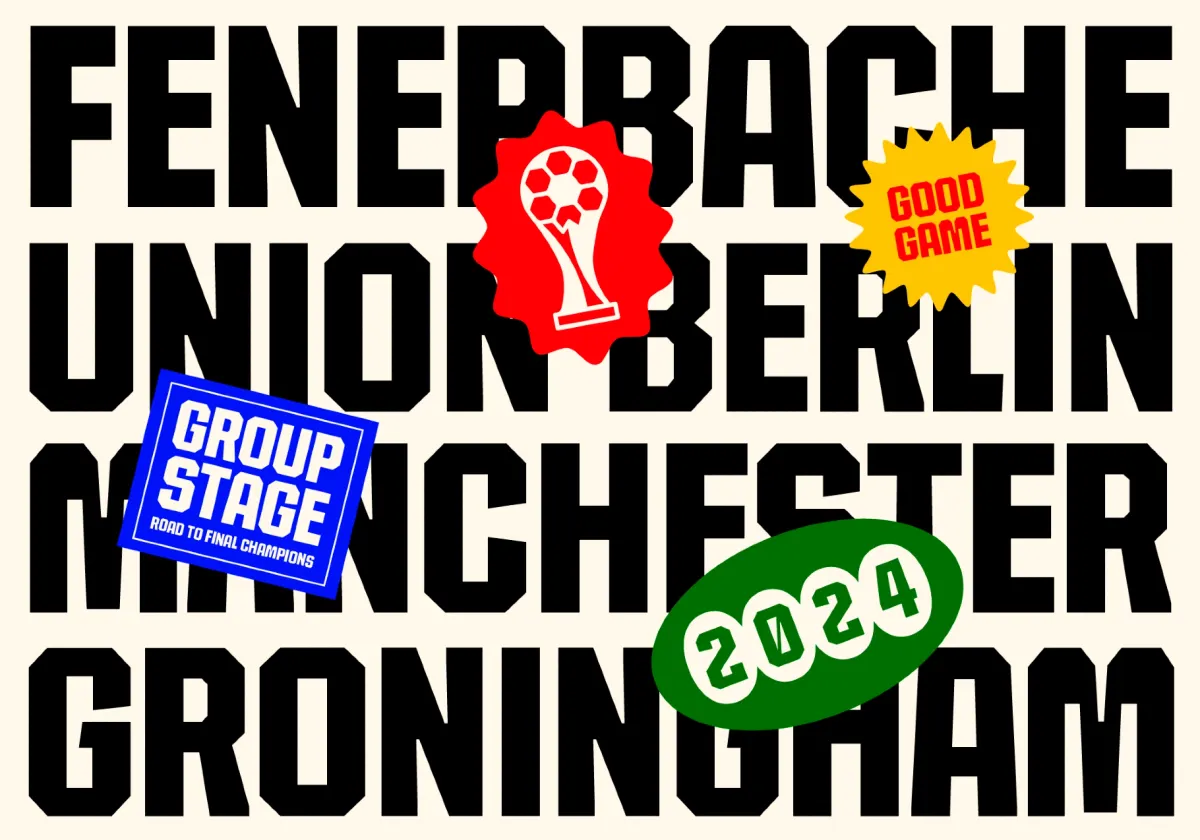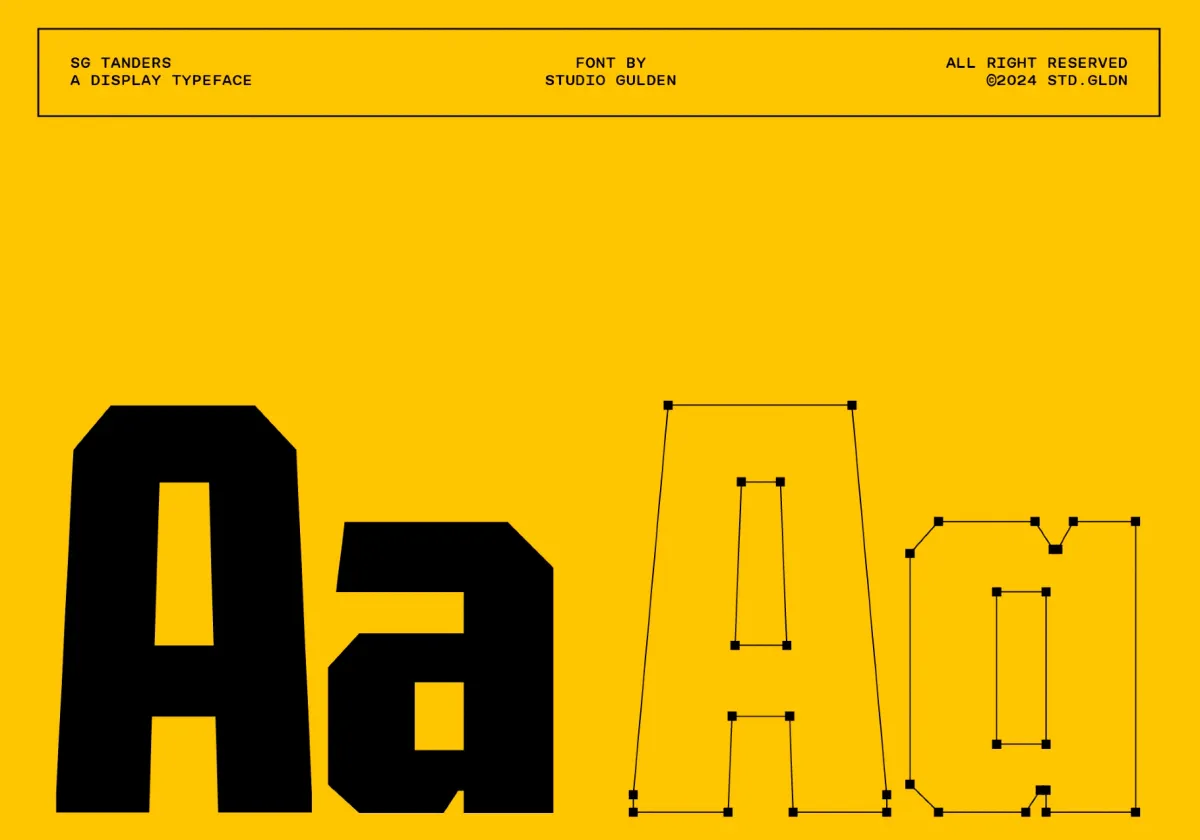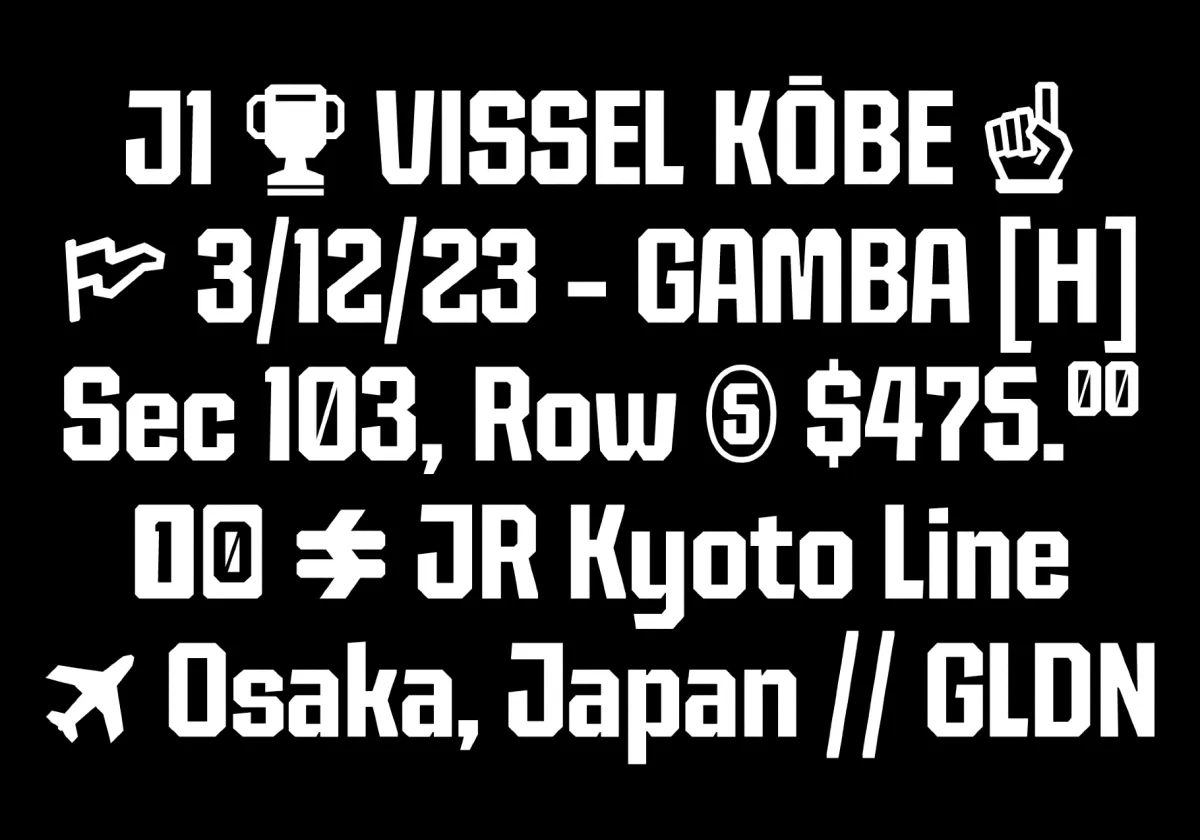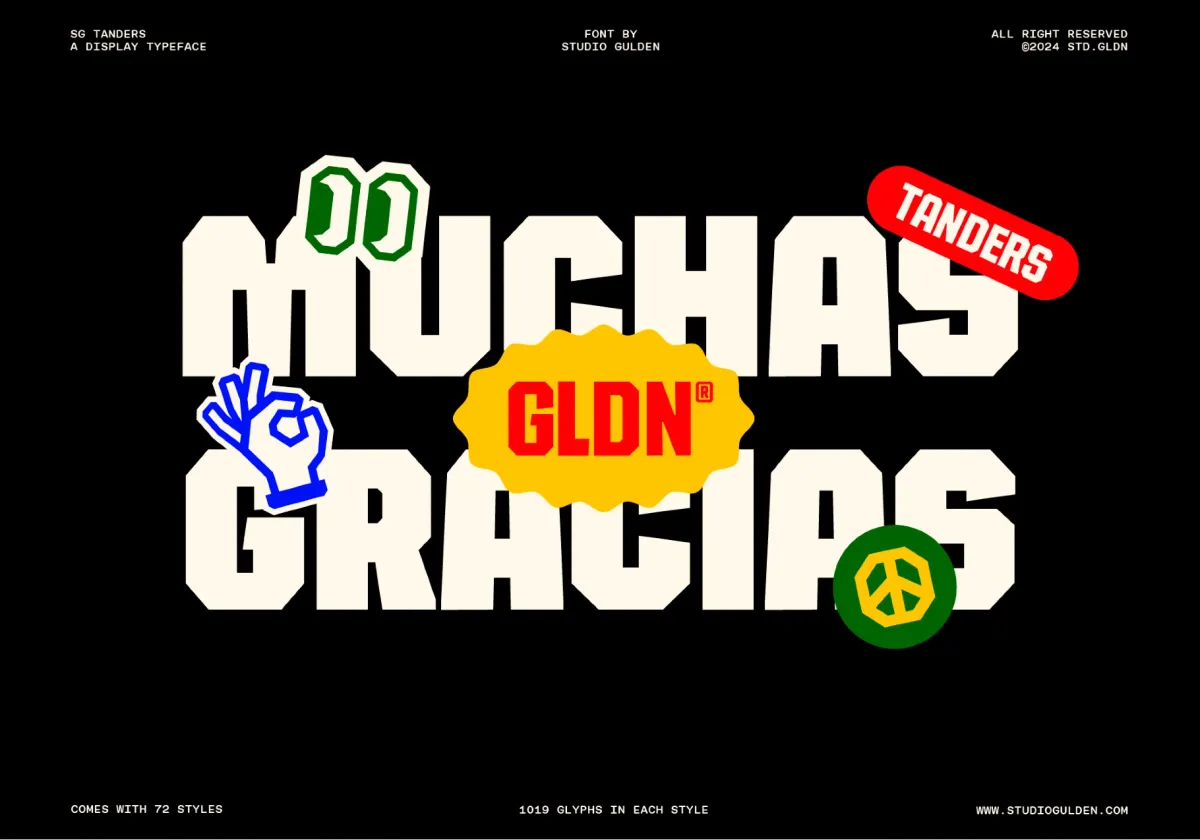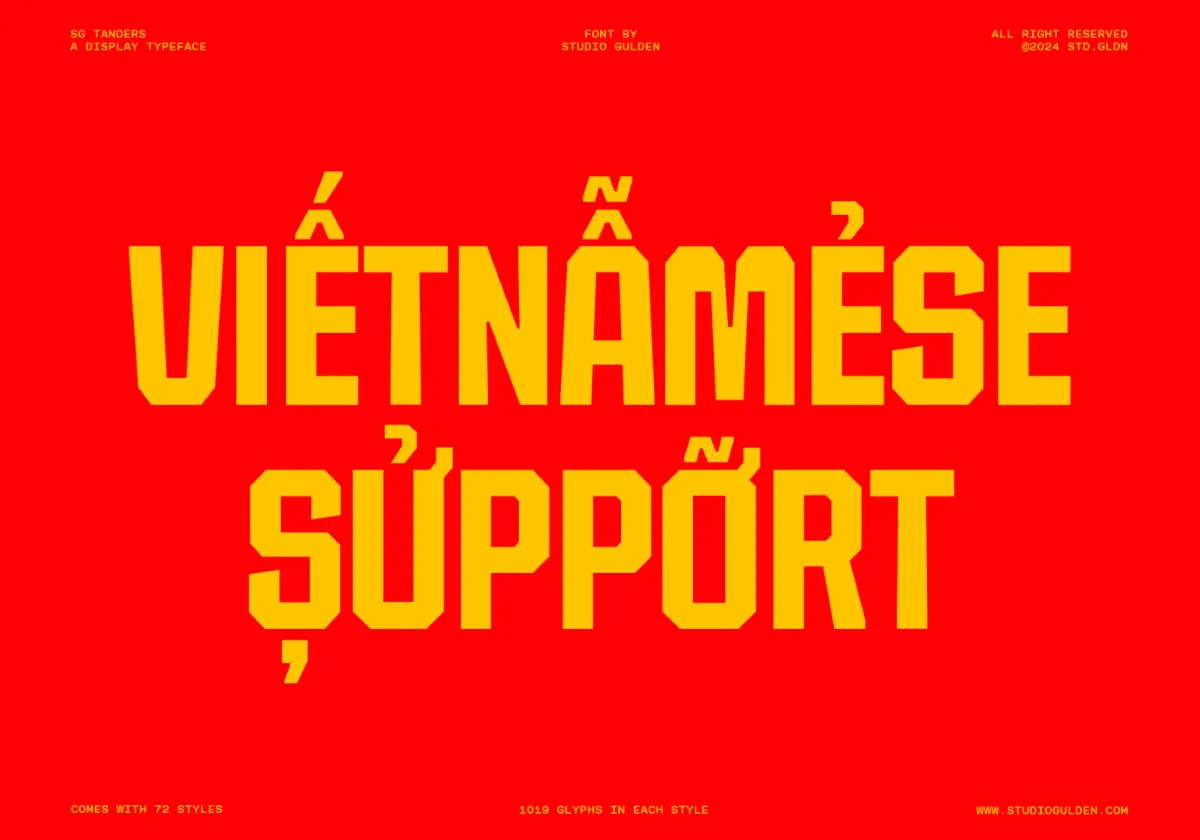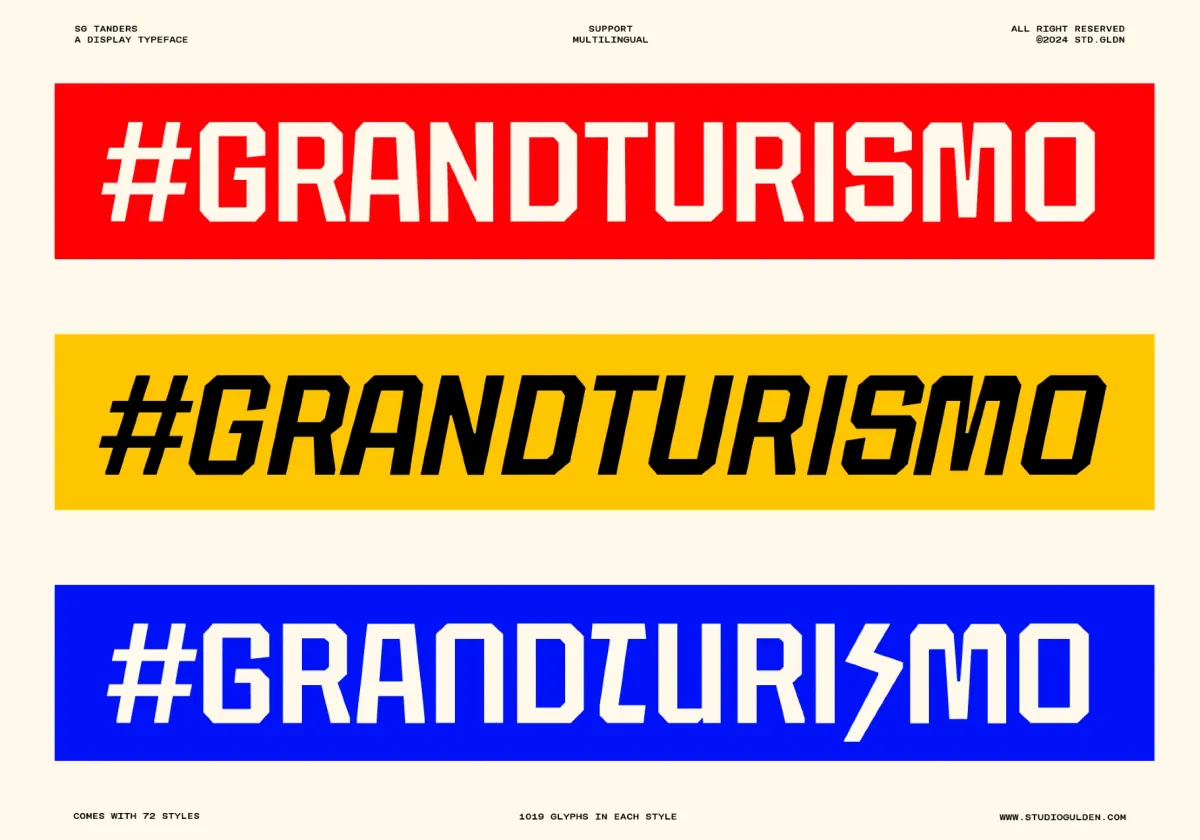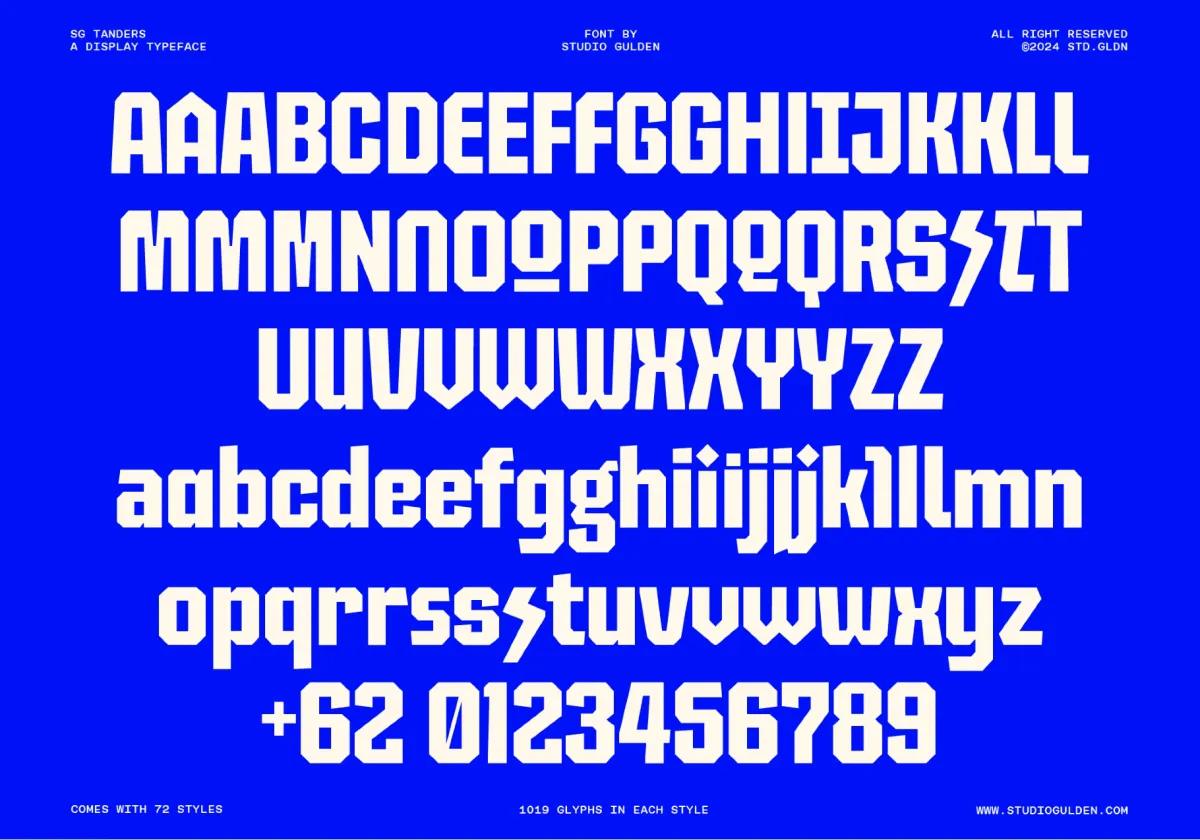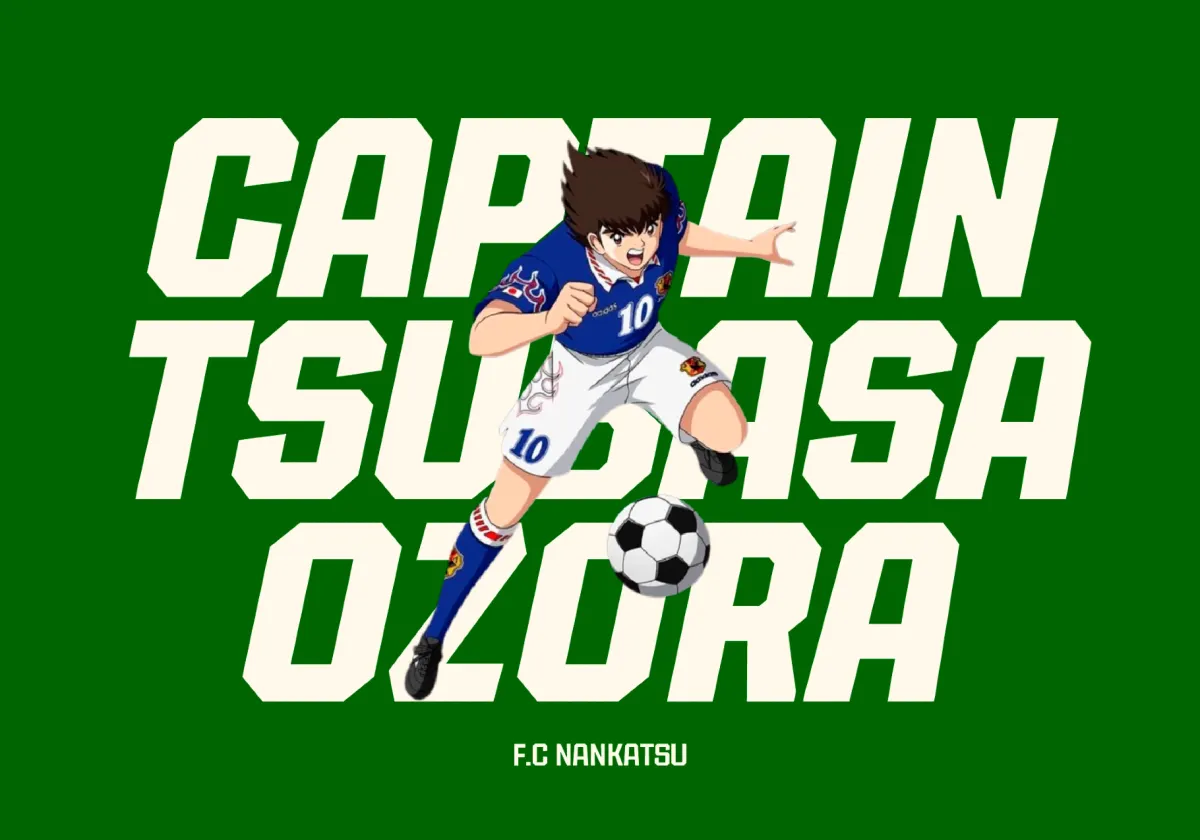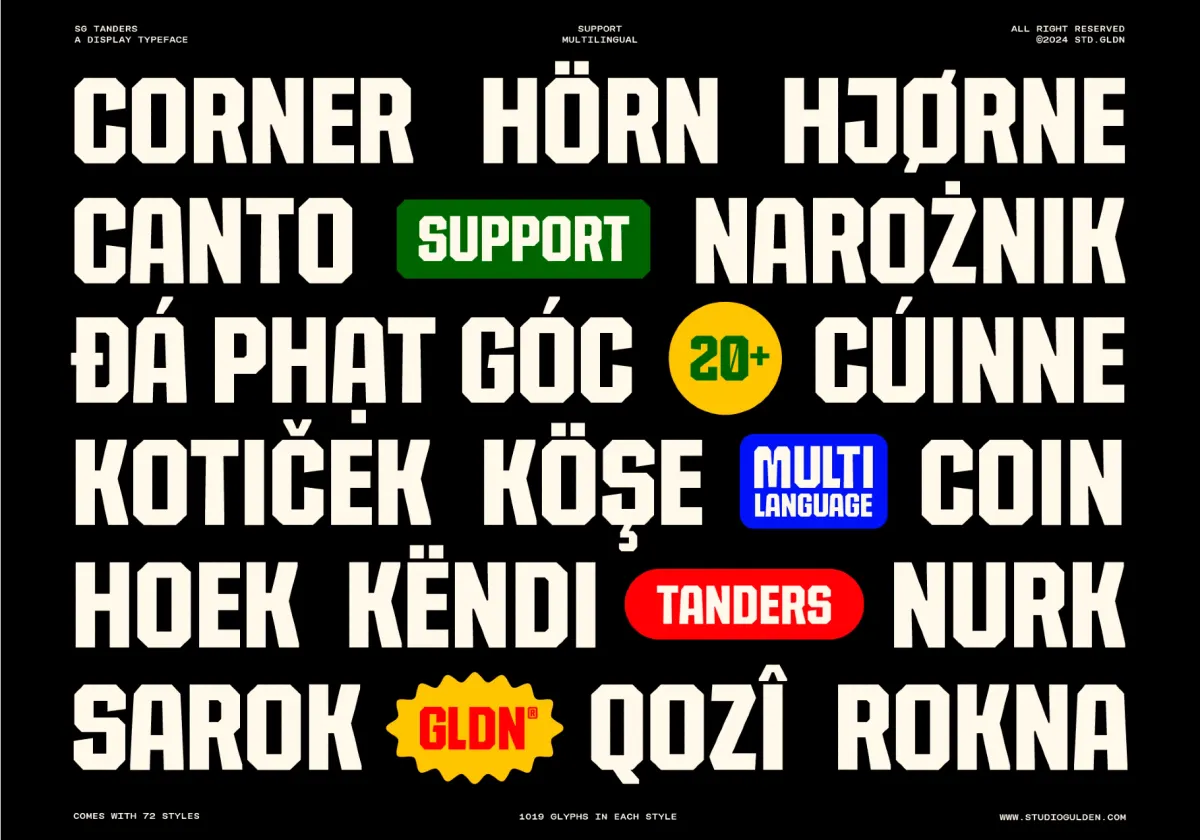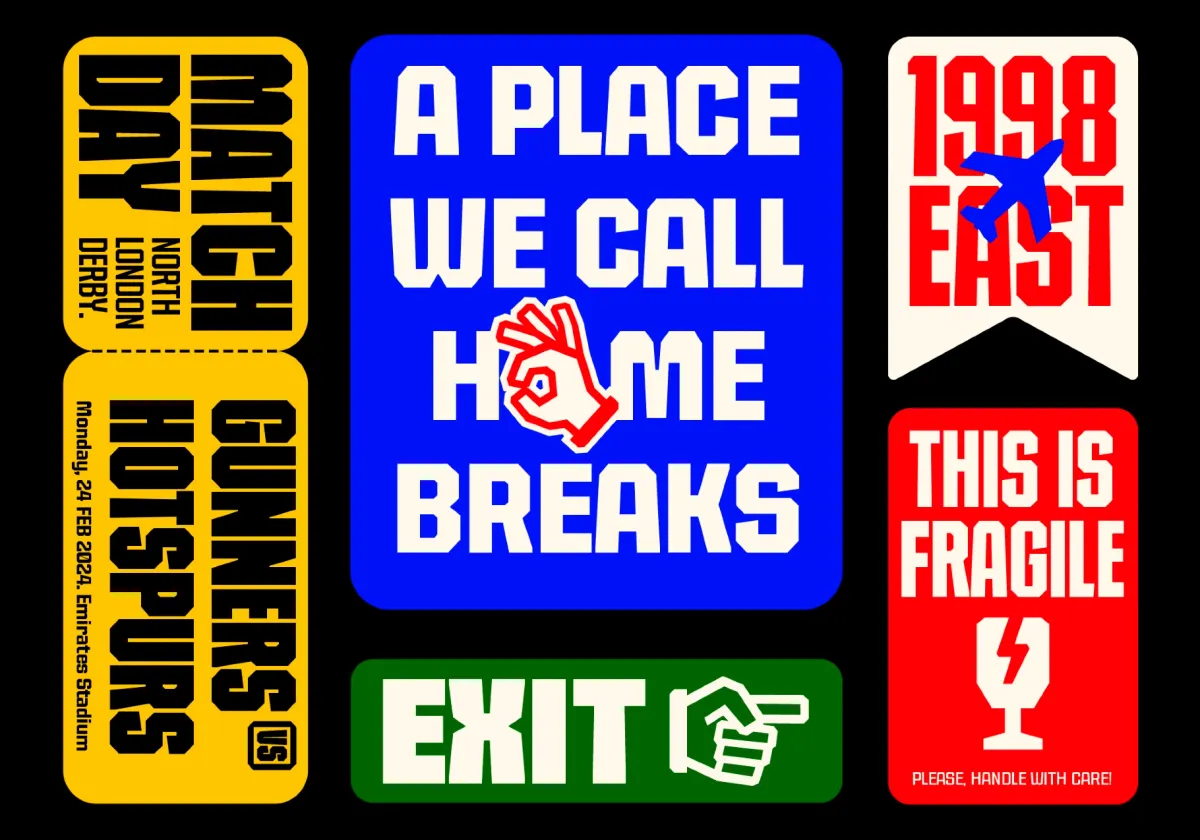
SG Tanders Superfamily: 72 Fonts
SG Tanders display superfamily brings the energy of sports lettering to life — with bold, angular forms that feel right at home on jerseys, banners, and stadium screens. It channels the impact of athletic branding while offering an almost shocking level of typographic range.
Across 72 styles — from Condensed to Wide, Thin to Black, Upright to Slanted — this variable family delivers maximum flexibility. Use it to dial in tight, aggressive layouts or open things up for bold, cinematic moments: e.g., sports branding, team merch, esports graphics, music promos, posters, social media, etc.
• 72 styles across 4 widths and 9 weights (each with slanted counterparts)
• full Latin support;
• OpenType features;